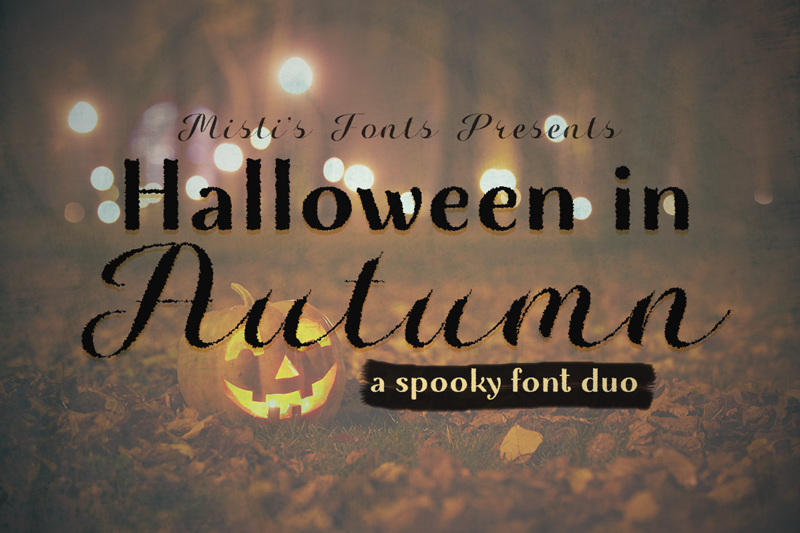
Preview and download Halloween in Autumn Sans Font. Created by Misti's Fonts in Fancy Eroded styles with Free for personal use license.
Halloween in Autumn is a fun and spooky font duo that is perfect for your Fall projects! You can use the fonts together or separately, adding variety to your designs! Terms Of Use and Commercial Licensing: https://mistifonts.com/halloween-in-autumn/ |